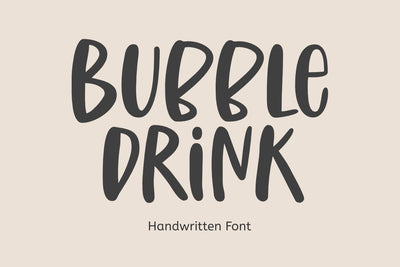
Bubble Drink - A Cute Handwritten Font
Bubble Drink is a cute and fun handwritten font. Its simple and friendly style makes this design incredibly versatile, fitting a wide variety of creative ideas.